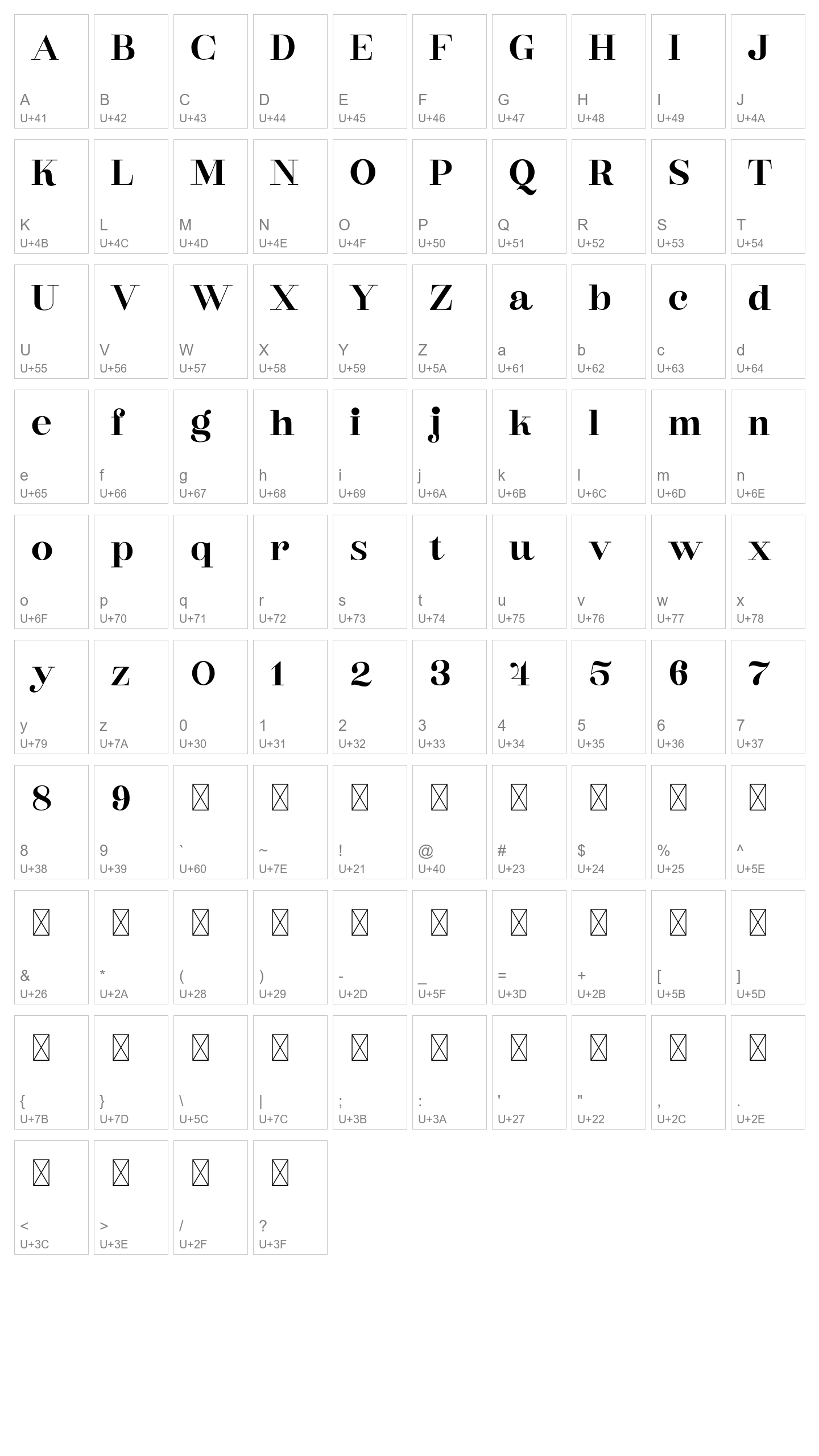
Rockdale
Rockdale is a luxurious serif font that is perfect for designing brands and logos. It has bold curves that will capture your attention while maintaining a modern and sophisticated look. The best part is that you can download Rockdale for free! Dont miss out on this opportunity to elevate your brand or logo design.